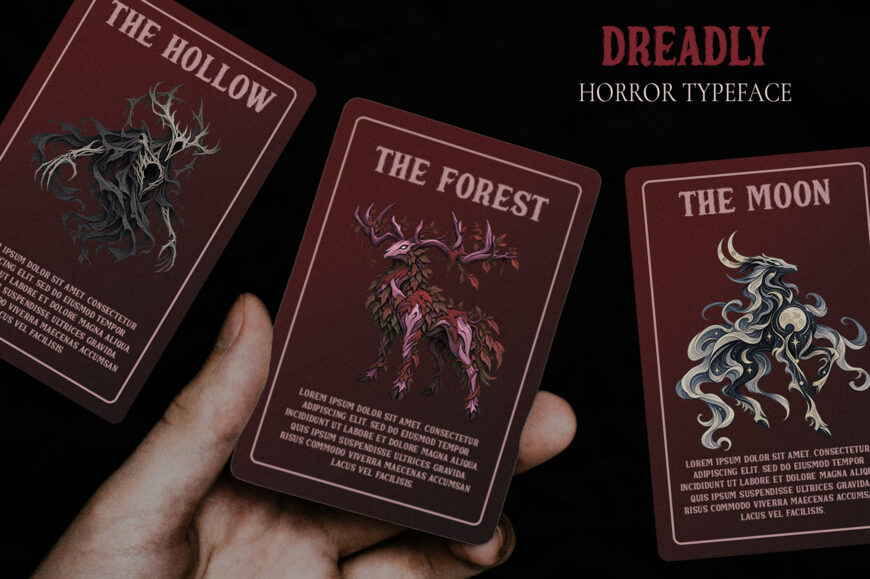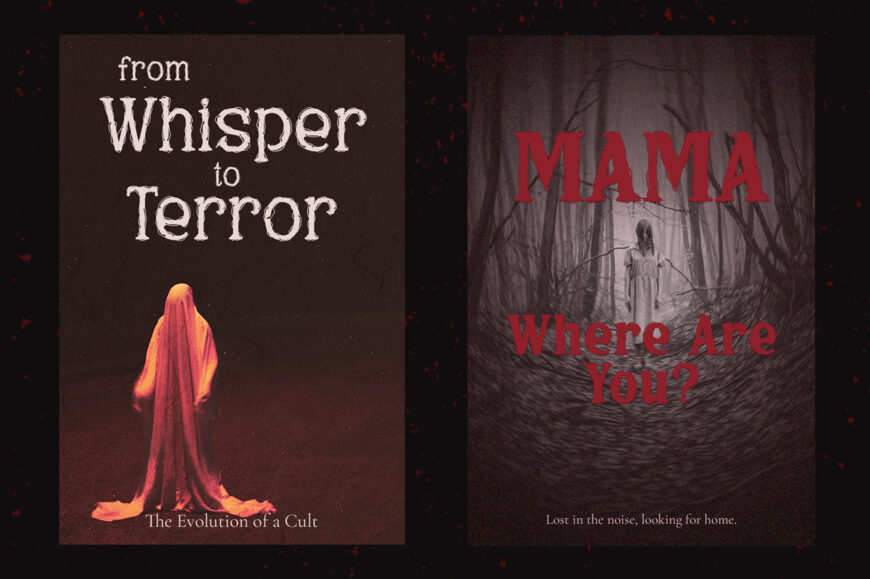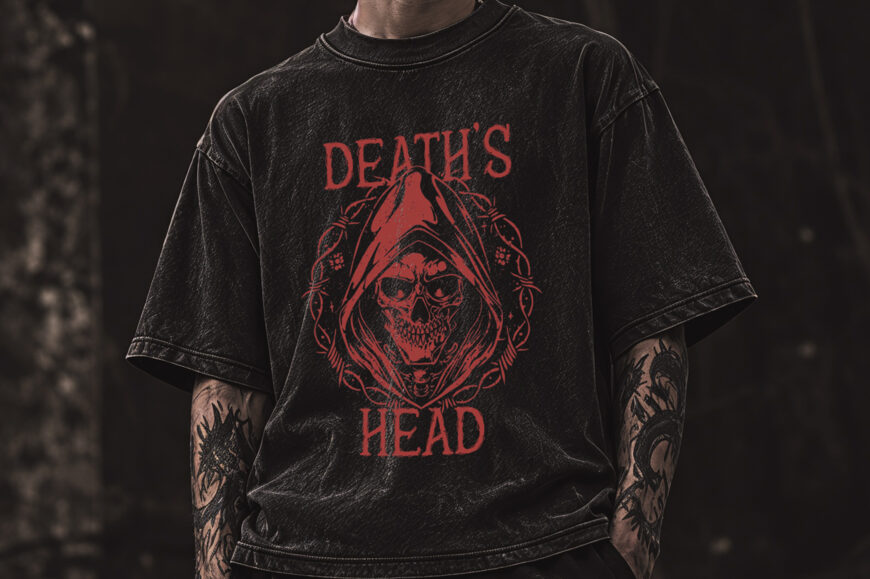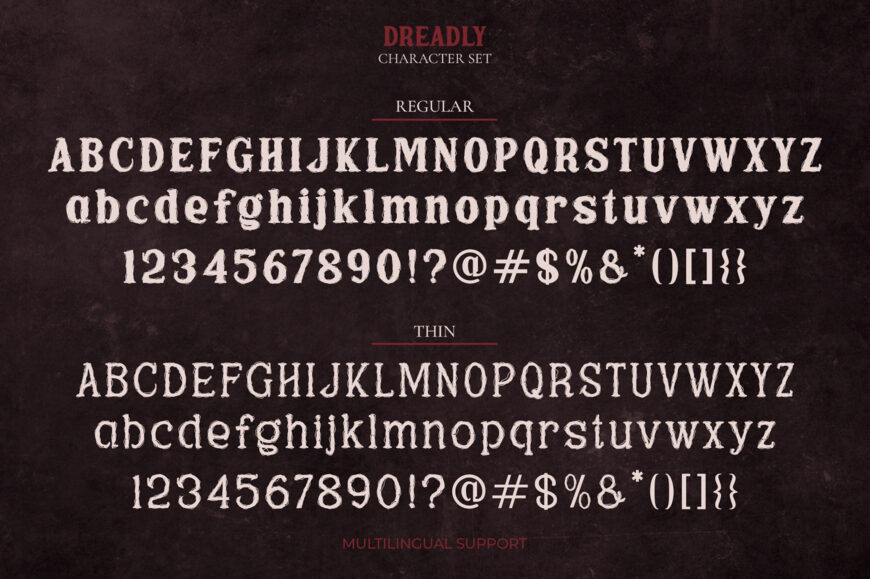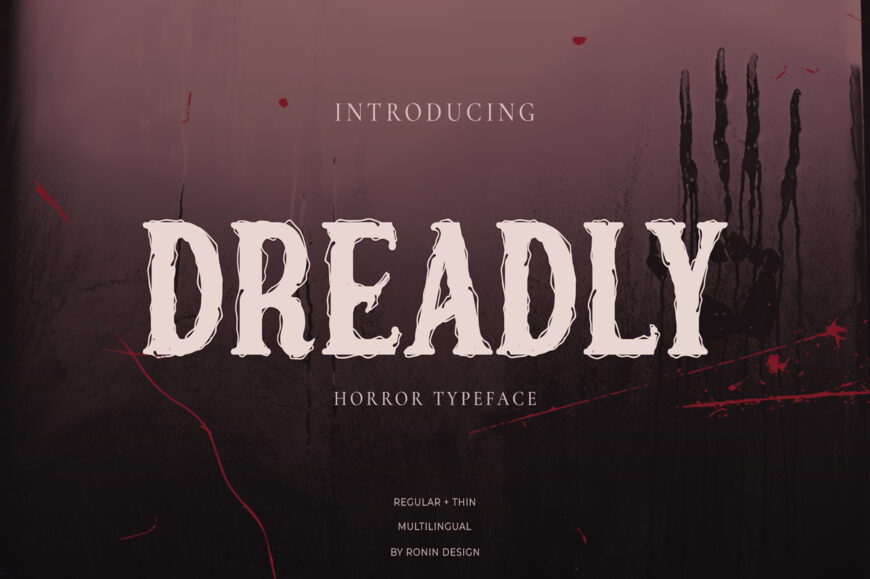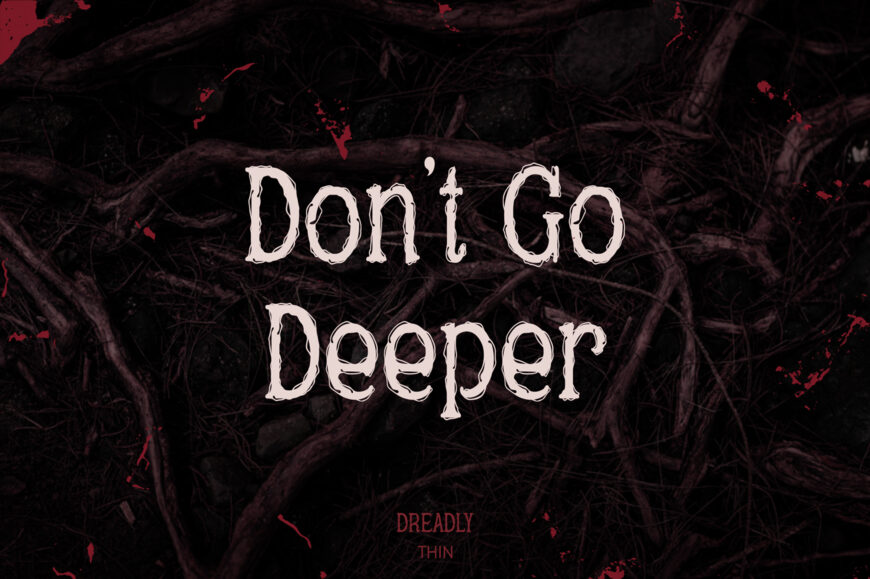
Dreadly Thin Font
Enter the darkness with Dreadly, a haunting display typeface designed to bring an unsettling, organic character to your designs. Featuring irregular contours, distorted forms, fluid terminals, and eerie details, Dreadly creates a raw and distinctive horror aesthetic while maintaining a strong, recognizable silhouette.
Dreadly comes in Regular and Thin styles, giving you flexibility from bold, threatening headlines to subtle and eerie compositions. Its expressive forms make it ideal for horror and dark-themed creative projects. Perfect for horror movie titles, Halloween designs, dark fantasy, video games, posters, album artwork, book covers, merchandise, T-shirts, branding, social media graphics, and more.